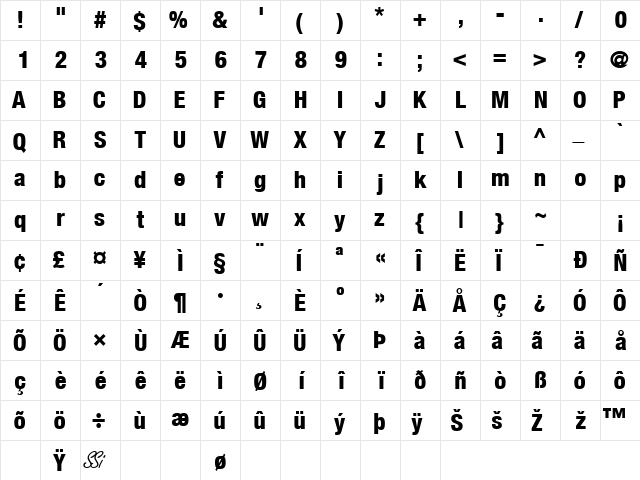
ContextRepriseBlackCondSSK Regular
Design Context for ContextRepriseBlackCondSSK Typeface
ContextRepriseBlackCondSSK is a composed and adaptable typeface that performs quietly and consistently across a wide range of design contexts. Its narrow stance lets it pack a punch even in space-constrained designs.
Pro Tip: Use ContextRepriseBlackCondSSK in both headline and body roles to test its range before committing to a single application.